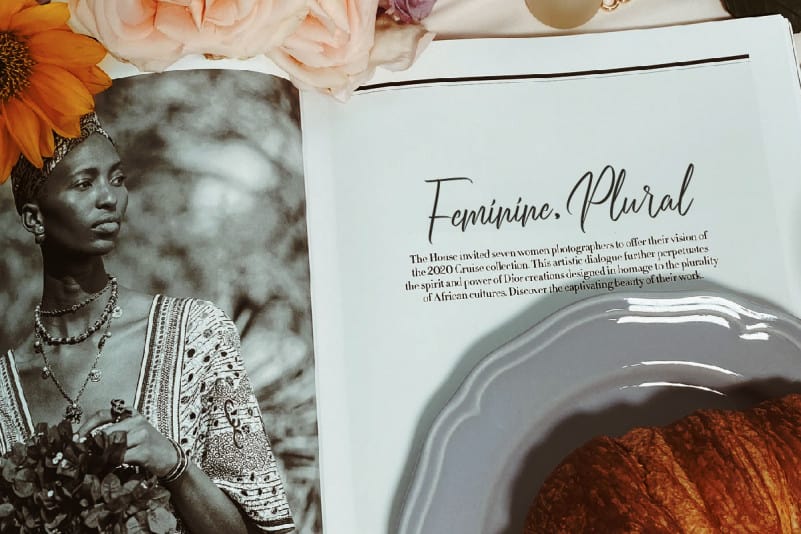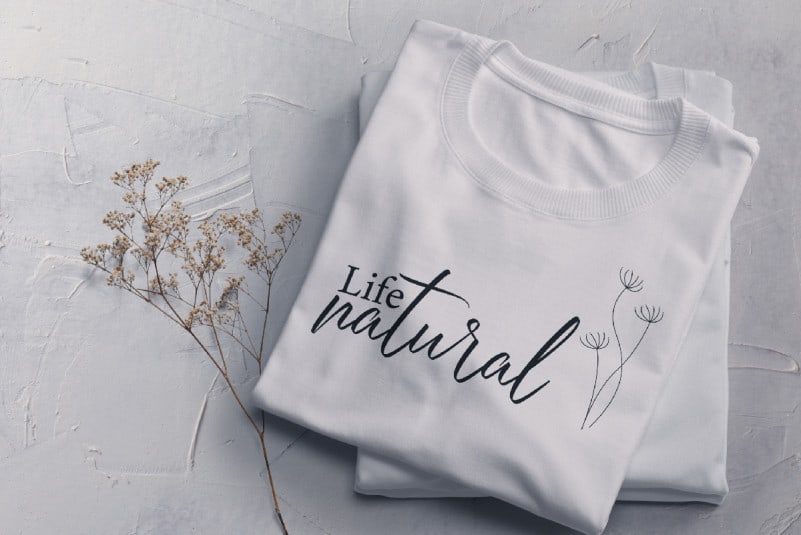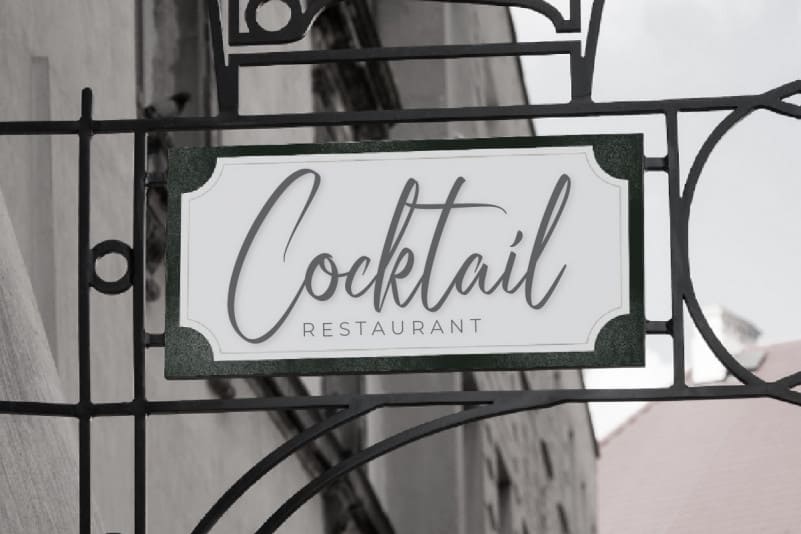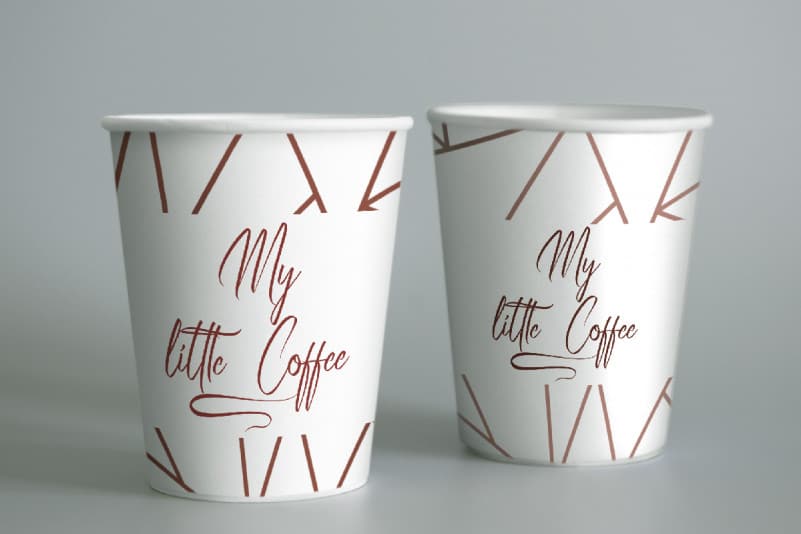
Breakdays Script Font
Breakdays Script Font was handcrafted With simple characters, it will be stunning for any your special projects including : games, promotion, events, branding, advertising, magazine, apps, signage, invitation, stationery, social media posts, product packaging, product designs, label, comic, watermark or and any projects that need calligraphy handwriting style.
Breakdays Script Font includes full set of cool uppercase and lowercase letters, numerals, a large range of punctuation and ligatures. All letters has hand-lettered style to make it unique yet cool looking design.